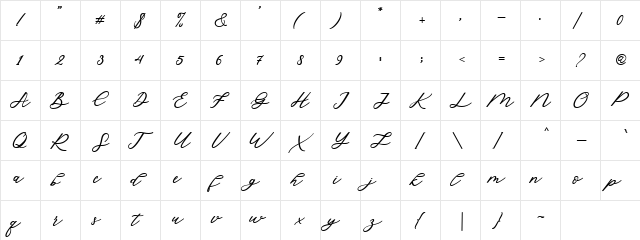
Cadosa Script Regular
Design Context for Cadosa Script Typeface
Cadosa Script brings a calligraphic fluidity to the page — its connecting strokes and expressive curves give it an unmistakably human quality.
Font Pairing: Combine Cadosa Script with a simple geometric sans for maximum contrast — the tension between flowing curves and clean structure is a classic typographic pairing.
Pro Tip: Use Cadosa Script for short runs of text — names, titles, or taglines. Extended body copy in script faces tires the eye quickly.